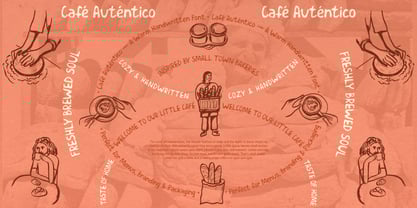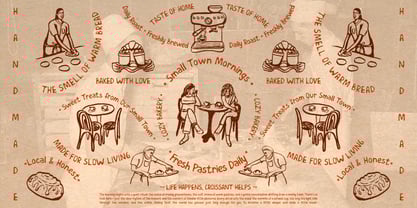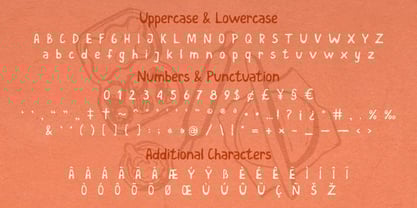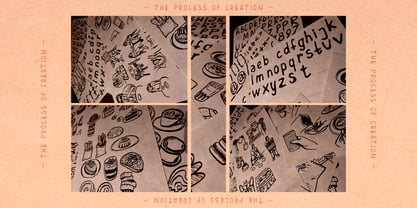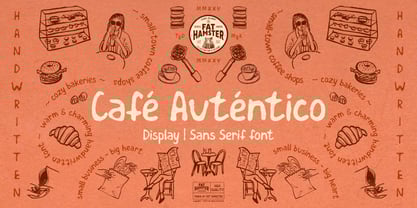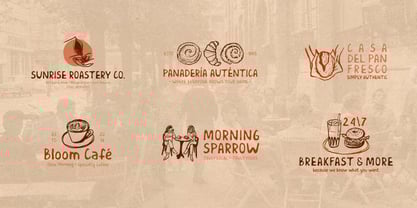
Cafe Autentico
by Fat Hamster
The Cafe Autentico Font Family was designed by Alesia Kutsian, Aliaksei Hvozdzeu and published by Fat Hamster. Cafe Autentico contains 1 styles. More about this family
Café Auténtico handwritten sans serif display font. Meet Café Auténtico, a warm and charming handwritten sans serif font inspired by small-town coffee shops, cozy bakeries, and the slow rhythm of local life. Each letter feels hand-crafted — imperfect in the best way, with soft curves and subtle irregularities that bring an authentic, human touch. Perfect for café branding, packaging, menus, posters, quote designs, logo and branding design, lifestyle blogs — anywhere you want to add that feeling of freshly brewed coffee and handwritten warmth.
Designers: Alesia Kutsian, Aliaksei Hvozdzeu
Foundry: Fat Hamster
Fat Hamster is a digital type foundry. Two award-winning graphic designers founded small design studio in 2013. They focus on packaging & label design, brand creation and illustration, have been working with clients from around the world. But as years passed, their interests expanded and at some point they decided to start making fonts. Always being passionate about typography and hand crafting.They are inspired by nature: trees & plants, animals & fishes, soil & water. The main idea of the foundry is to make unique & fun typefaces for different uses.